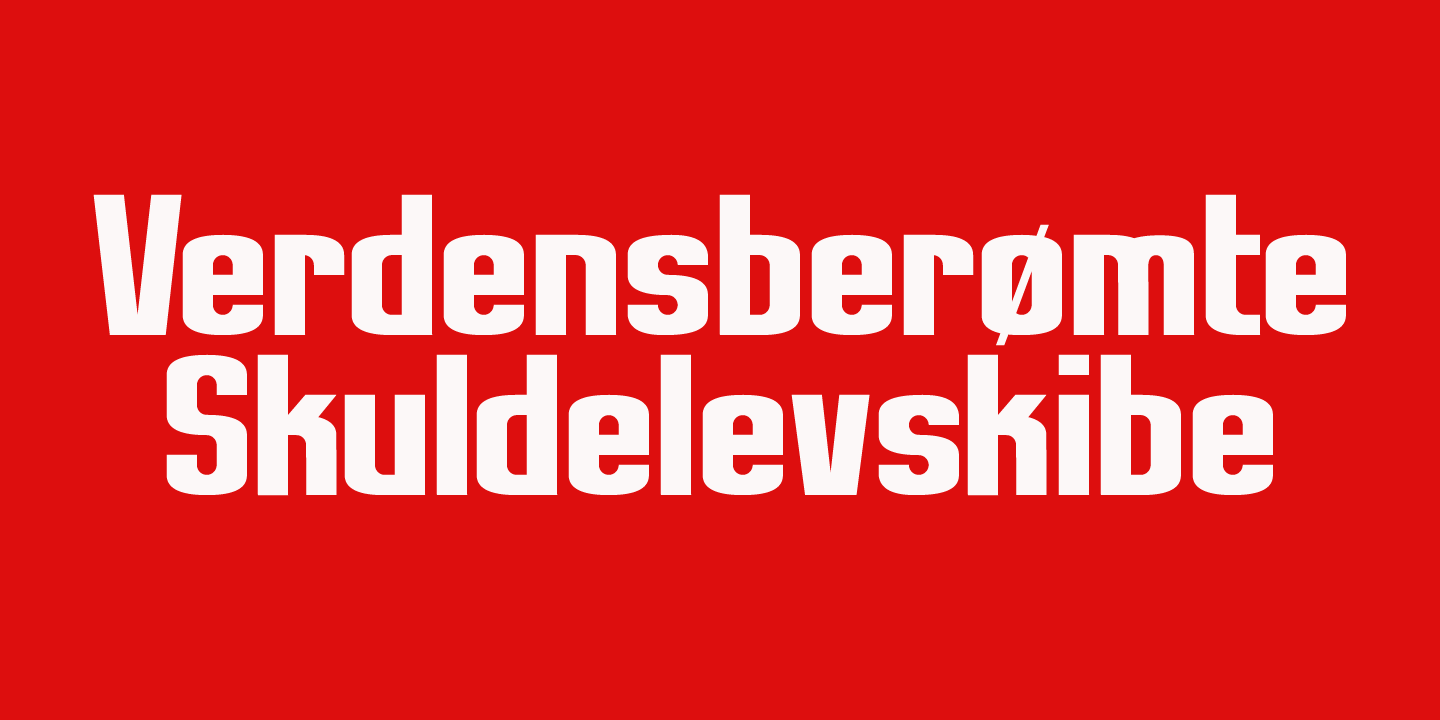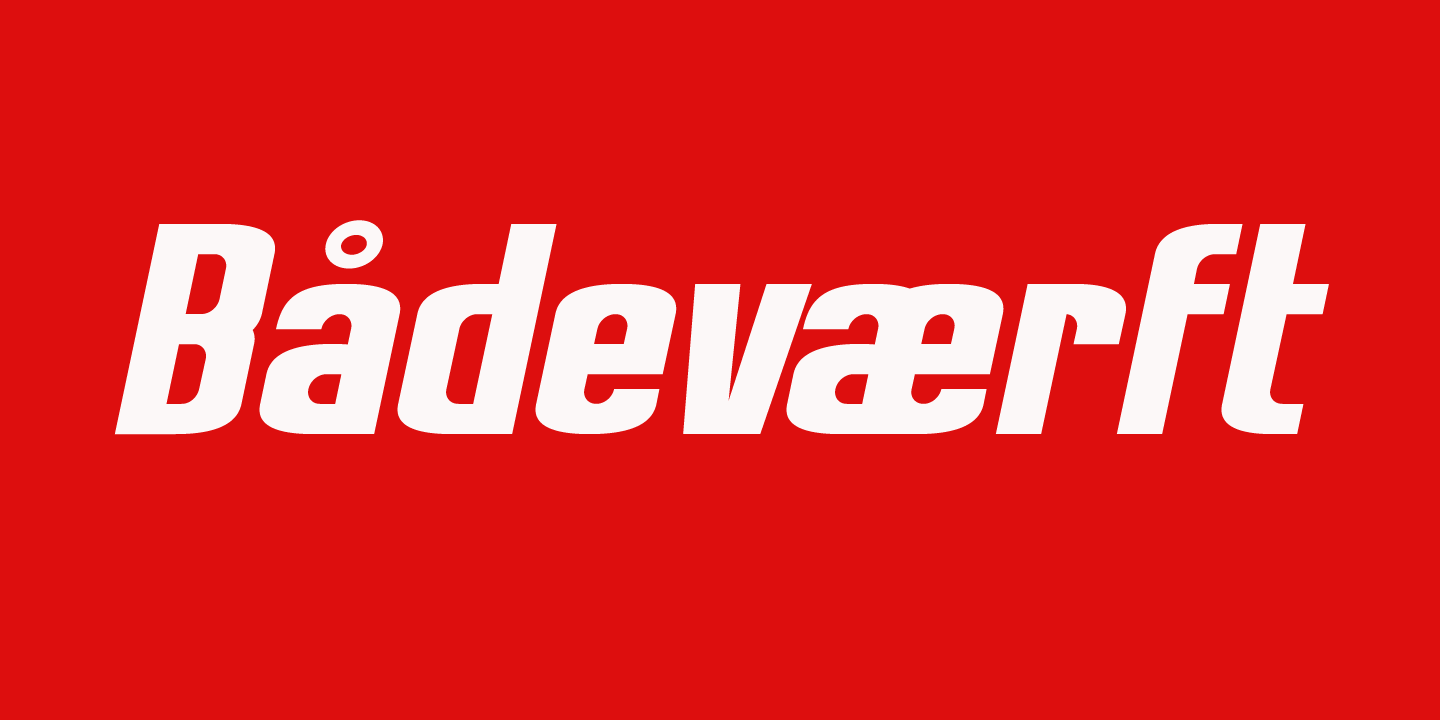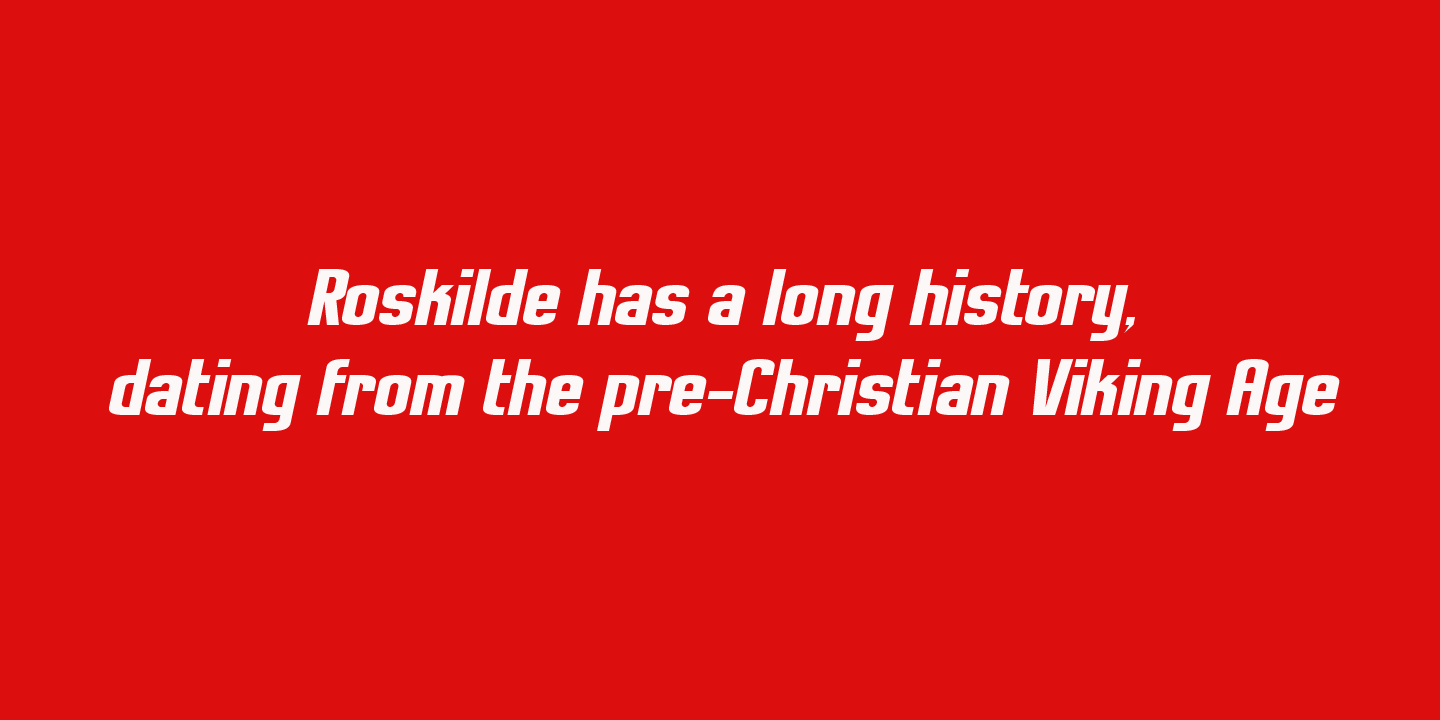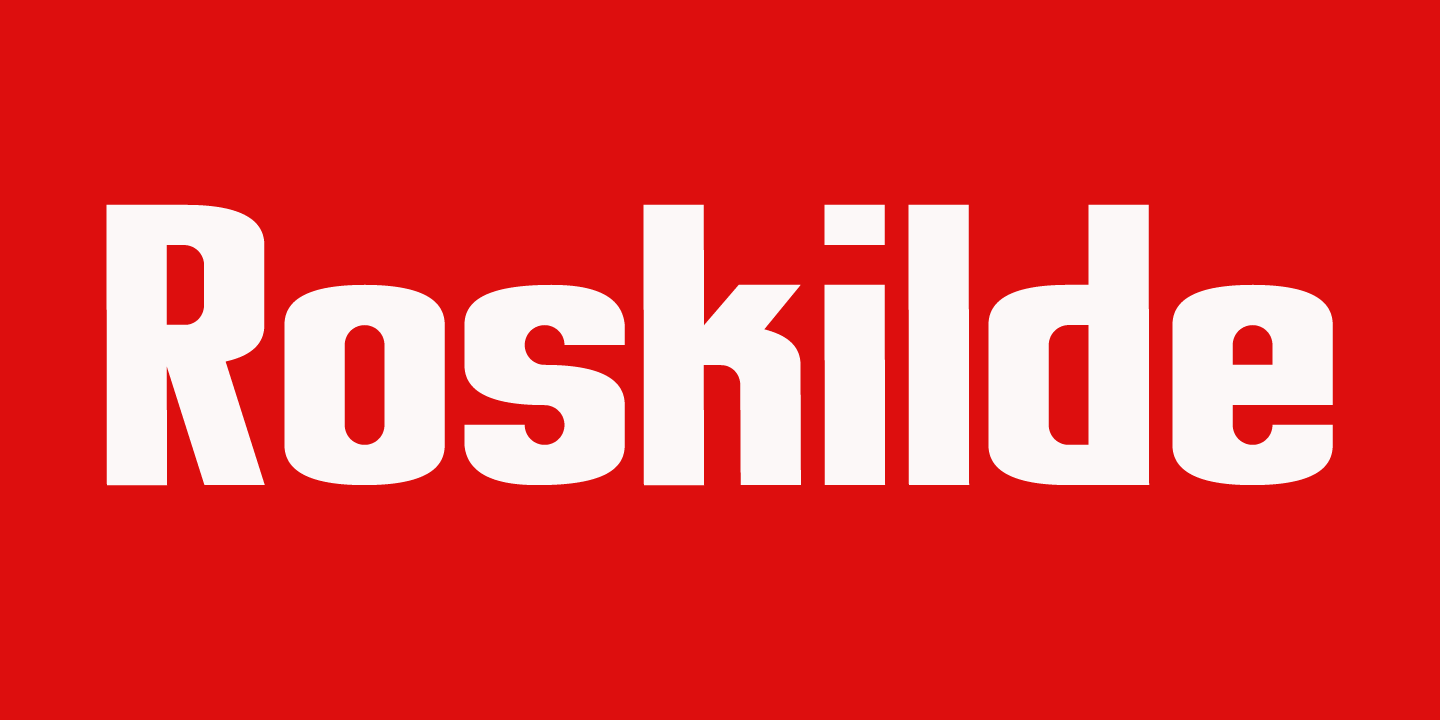
Roskilde
About Roskilde
Roskilde is a city in Denmark, famous for its Rock Festival and its Viking Ship museum. Roskilde font is a very legible headline font.